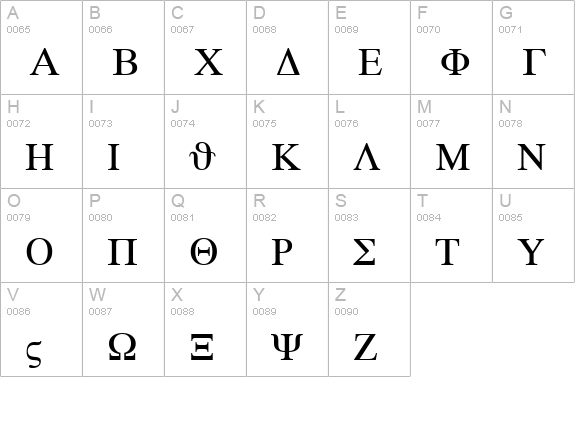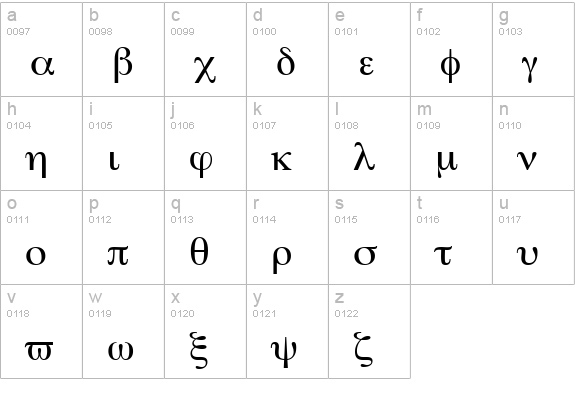
Symbol Set SWA Font Details
Symbol Set SWA is a versatile and visually appealing font that offers a wide range of symbols and icons perfect for various design projects. This font features a modern and sleek design, making it suitable for both digital and print applications. With a comprehensive set of symbols, Symbol Set SWA is ideal for creating eye-catching graphics, presentations, and promotional materials. What sets Symbol Set SWA apart is that it is available for free download at FontsMarket.com, making it accessible to designers and creatives looking to enhance their projects without any cost. This font is a valuable addition to any designer's toolkit, offering endless possibilities for adding a unique touch to their work. Symbol Set SWA is easy to use and compatible with different design software, making it a convenient choice for both beginners and experienced designers alike. Whether you're working on a website, branding materials, or social media graphics, Symbol Set SWA is sure to elevate your designs with its wide selection of symbols and icons. Download Symbol Set SWA today from FontsMarket.com and start incorporating these stylish symbols into your next project.